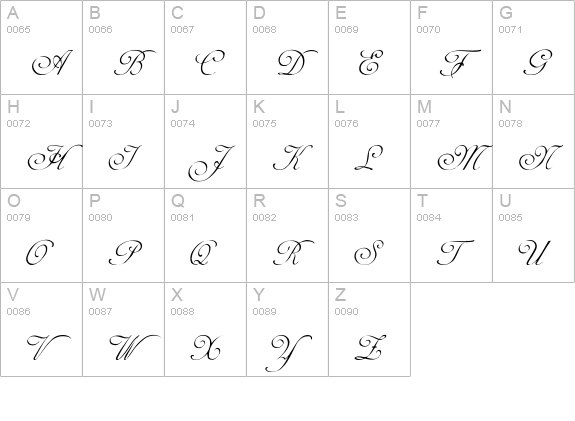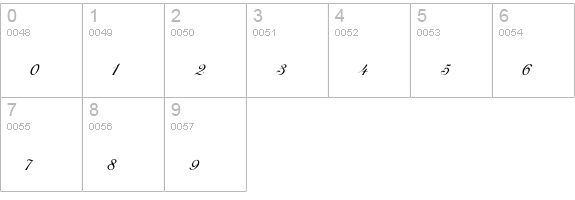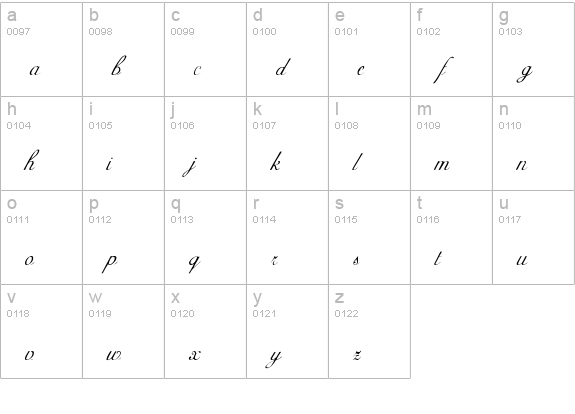
AdineKirnberg-Script Font Details
AdineKirnberg-Script is a stunningly beautiful and elegant font that will add a touch of sophistication to any design project. With its delicate and flowing strokes, this font exudes a sense of grace and charm. It is the perfect choice for invitations, wedding stationery, branding materials, and any other creative endeavor that requires a touch of class. The unique and intricate letterforms of AdineKirnberg-Script will captivate your audience and leave a lasting impression. Each character is meticulously designed to create a seamless and harmonious flow, resulting in a visually stunning display of typography. What makes AdineKirnberg-Script even more incredible is that it is available to download for free at FontsMarket.com. Yes, you read that right - this exquisite font can be yours without having to spend a dime. FontsMarket.com is a trusted source for high-quality fonts, and they are generously offering AdineKirnberg-Script as a free download for all aspiring designers and creatives. Whether you are a professional designer or a passionate hobbyist, AdineKirnberg-Script is a must-have addition to your font collection. Its versatility and timeless beauty make it suitable for a wide range of projects, from elegant wedding invitations to eye-catching logos. Don't miss out on the opportunity to enhance your designs with this fabulous font. Head over to FontsMarket.com today and download AdineKirnberg-Script for free. Unleash your creativity and let this font bring your designs to life with its classic and enchanting charm.